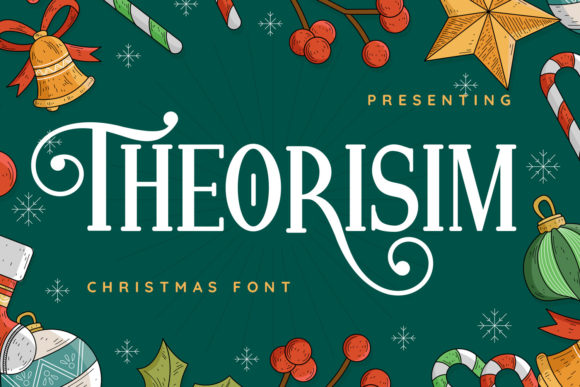
Theorisim Font: A Vintage Styled and Cool Display Font
Theorisim font is a stylish and versatile display font that has gained popularity among designers and artists. Its unique vintage style and cool appearance make it an excellent choice for a wide range of design projects. In this article, we will explore the features and benefits of Theorisim font, and discuss how it can be used to enhance your designs.
What is Theorisim Font?
Theorisim font is a vintage styled and cool display font that is designed to add a touch of elegance and sophistication to your designs. It is a carefully crafted font that features intricate details and a unique aesthetic that sets it apart from other fonts. Theorisim font is perfect for designers who want to create stunning and eye-catching designs that capture the attention of their audience.
Key Features of Theorisim Font
- Vintage Style: Theorisim font features a unique vintage style that is reminiscent of classic typography.
- Cool Display Font: Theorisim font is designed to make a statement, with a bold and eye-catching appearance that demands attention.
- Highly Versatile: Theorisim font can be used on a wide range of design projects, from t-shirts and sportswear to logos and advertisements.
- Easily Readable: Despite its bold and decorative style, Theorisim font is surprisingly easy to read, making it perfect for use on a variety of materials.
What Can I Use Theorisim Font For?
Theorisim font is an incredibly versatile font that can be used on a wide range of design projects. Here are some ideas to get you started:
Design Ideas for Theorisim Font
- T-Shirts and Apparel: Theorisim font is perfect for use on t-shirts, hoodies, and other apparel items.
- Logos and Branding: Theorisim font can be used to create stunning logos and branding materials that make a lasting impression.
- Advertisements: Theorisim font is designed to grab attention, making it perfect for use in advertisements and marketing materials.
- Sportswear and Accessories: Theorisim font can be used on sportswear, hats, bags, and other accessories.
- Clothing and Fashion: Theorisim font is perfect for use in clothing and fashion designs, from dresses and tops to pants and jackets.
Why Choose Theorisim Font?
There are many reasons why Theorisim font has become a popular choice among designers and artists. Here are just a few:
Why Theorisim Font Stands Out
- Unique Style: Theorisim font features a unique and distinctive style that sets it apart from other fonts.
- High-Quality Design: Theorisim font is designed with high-quality and attention to detail, ensuring that it looks great on any material.
- Easily Customizable: Theorisim font can be easily customized to fit your design needs, from adjusting the size and color to adding effects and textures.
- Great for Branding: Theorisim font is perfect for use in branding and marketing materials, helping you to create a consistent and recognizable brand identity.
Tips for Using Theorisim Font
Here are some tips for getting the most out of Theorisim font:
Getting the Most Out of Theorisim Font
- Experiment with Colors: Theorisim font looks great in a variety of colors, so don’t be afraid to experiment and find the perfect hue for your design.
- Adjust the Size: Theorisim font can be used at a range of sizes, from small and subtle to large and bold.
- Add Effects and Textures: Theorisim font can be customized with effects and textures to add depth and interest to your design.
- Use on Different Materials: Theorisim font can be used on a wide range of materials, from paper and fabric to metal and wood.
Theorisim font is a versatile and stylish display font that is perfect for designers and artists who want to add a touch of elegance and sophistication to their designs. With its unique vintage style and cool appearance, Theorisim font is sure to make a lasting impression on your audience. Whether you’re designing t-shirts, logos, advertisements, or clothing, Theorisim font is an excellent choice.
Final Thoughts on Theorisim Font
Theorisim font is a high-quality font that is designed to help you create stunning and eye-catching designs. With its versatility, customizability, and unique style, Theorisim font is an excellent addition to any designer’s toolkit. So why not give Theorisim font a try and see how it can enhance your designs?